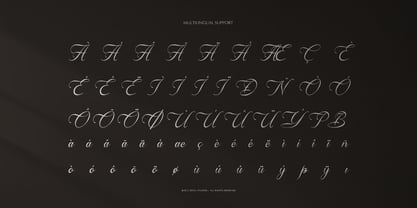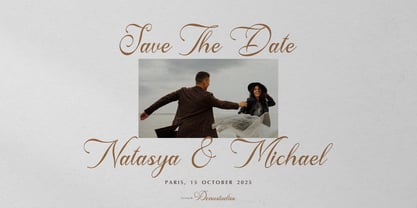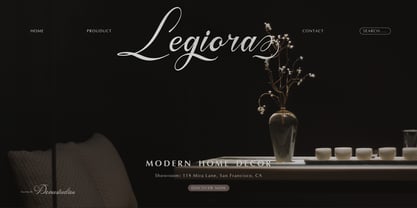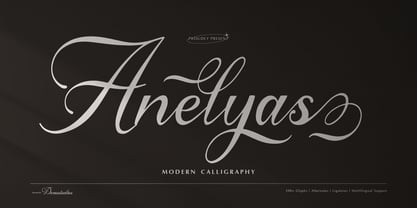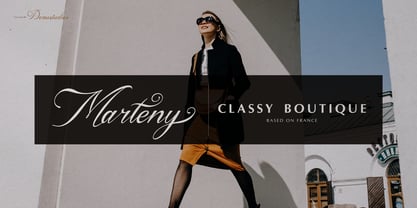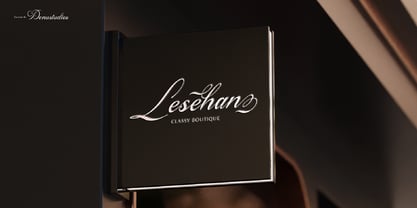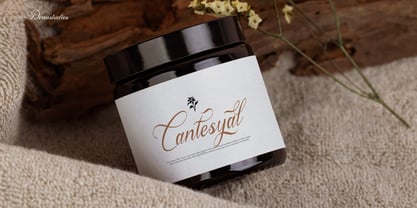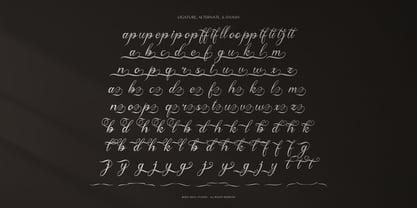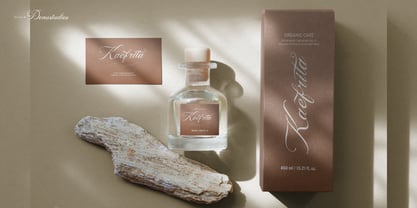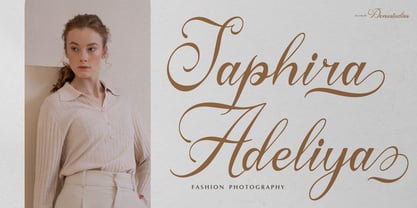
Anelyas
par Denustudio
La famille de polices Anelyas a été conçue par Dede Nugraha et publiée par Denustudio. Anelyas contient 2 styles et options de package familial.
Anelyas | Modern Calligraphy, from Denustudios, suitable for any projects such as: logos, branding projects, homeware designs, product packaging, mugs, quotes, posters, shopping bags, t-shirts, book covers, name card, invitation cards, greeting cards, label, photography, watermark, special events, and all your other lovely projects that need Modern Calligraphy a taste.
• Regular and Italic
• Standard glyphs
• Alternate and Ligature
• Fonts include multilingual support